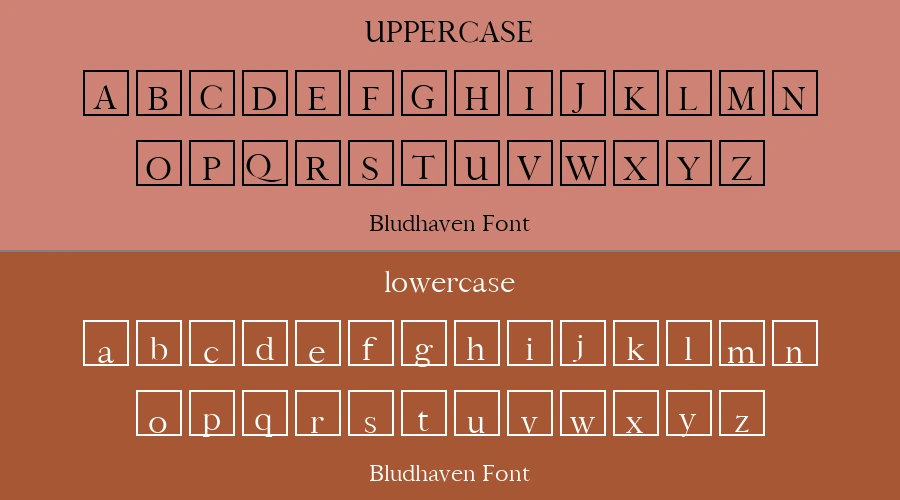
About Bludhaven Font
Bludhaven Font embodies typographic excellence through its masterful combination of graceful transitions and technical precision. Created for event branding, this typeface delivers exceptional legibility and manufacturing quality across all applications. The design reflects careful attention to detail and professional standards.
Advanced capabilities include distinctive impactful forms and versatile mathematical symbols, giving designers creative control. When used in campaign headers, Bludhaven Font exhibits remarkable format conversion. The harmonious balance between stroke contrast and technical innovation sets this typeface apart.